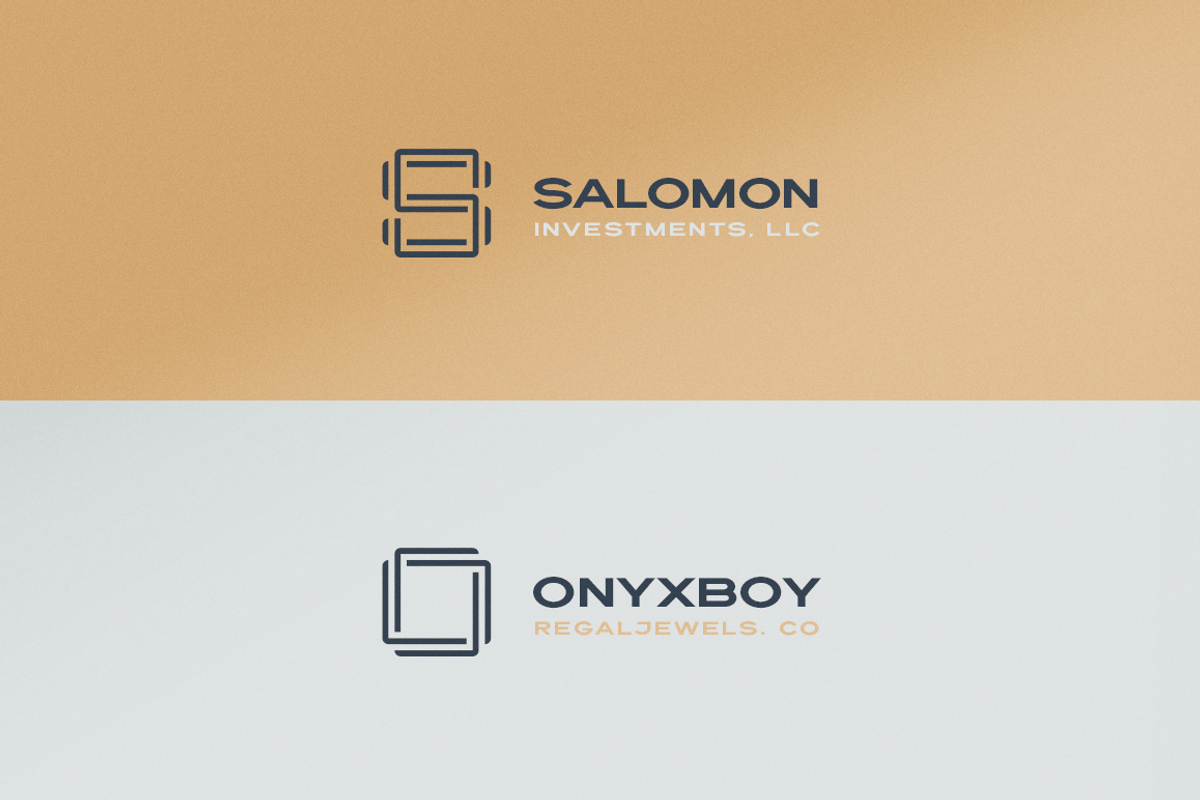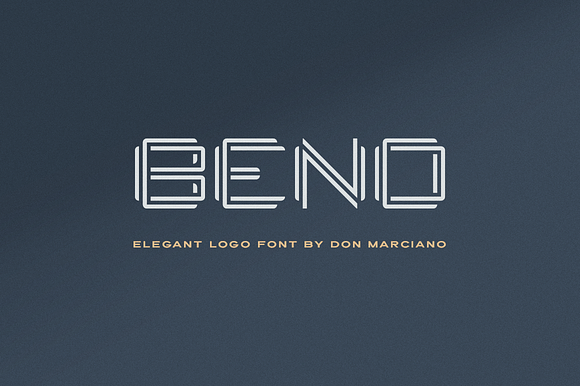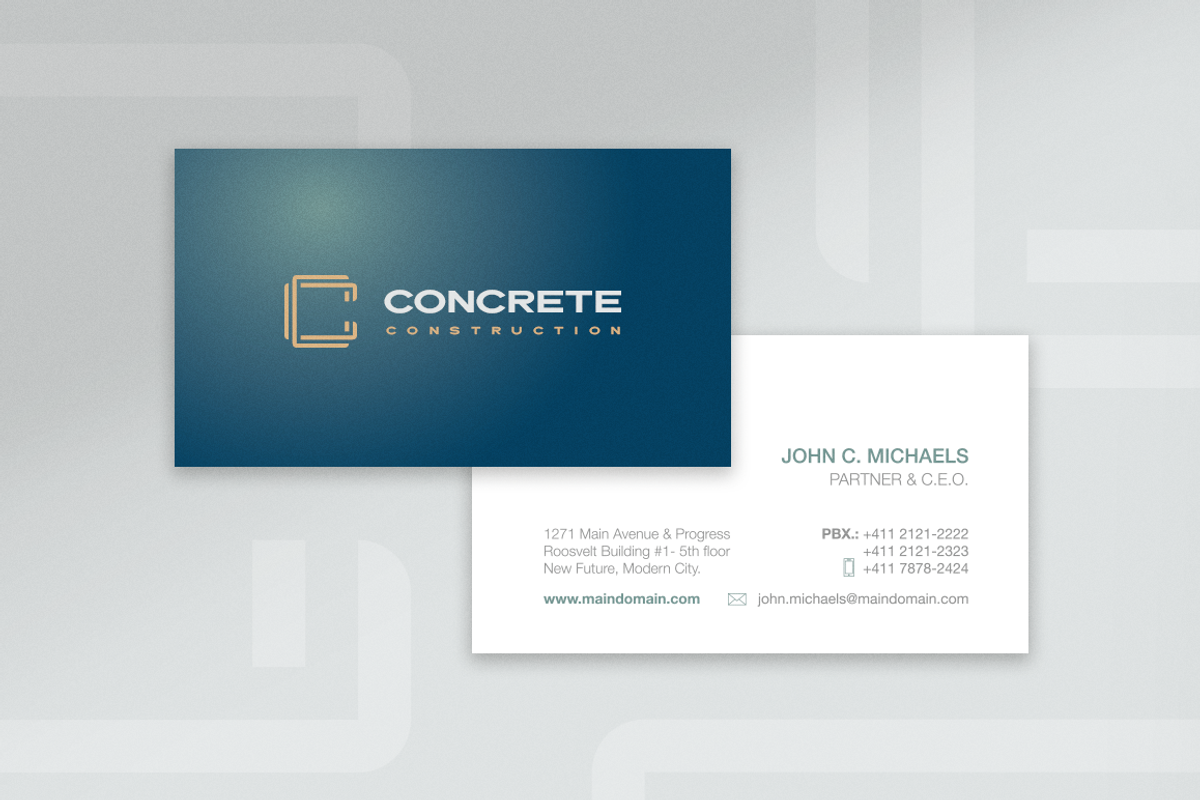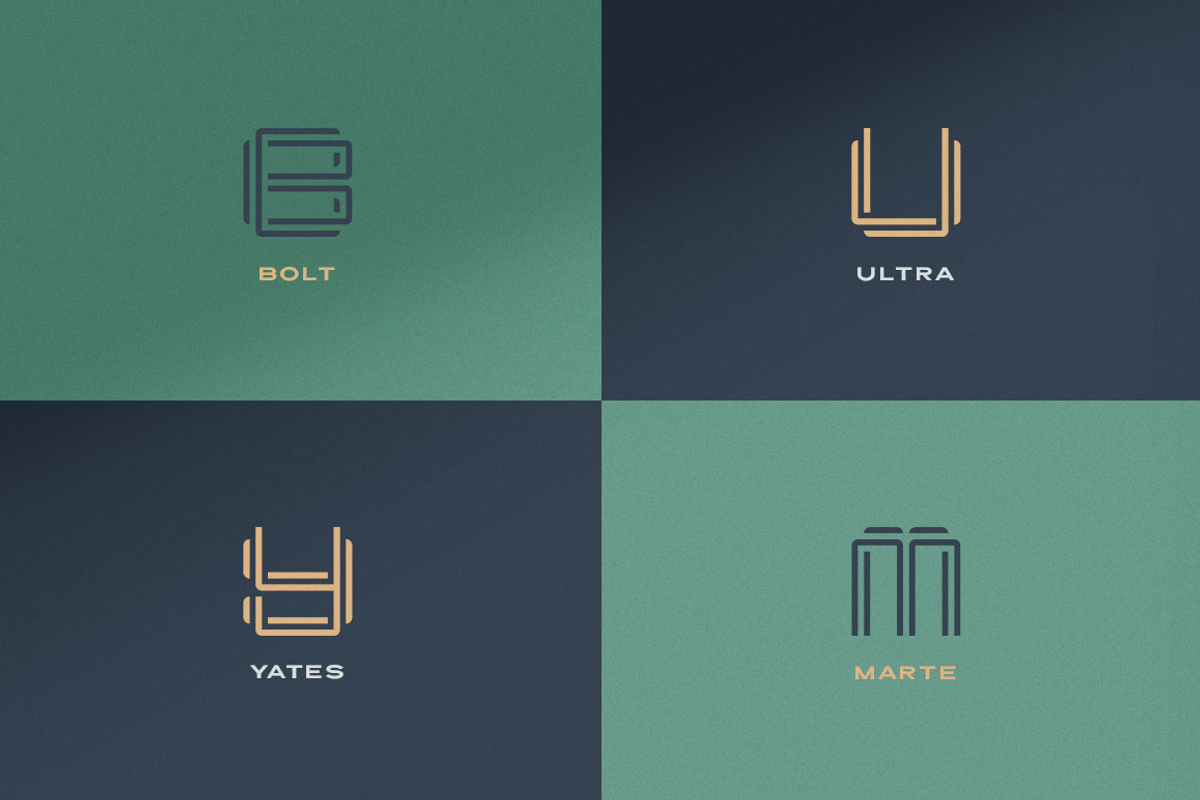
Bend Logo Font
Bend is a two-line only letters style font, design for an easy and fast way to create elegant and simple logo baseline for any kind of brand or product that is looking for that upscale look and feel, the font is especially good for one letter logos presentation; with straight lines and a combination of round and sharp corners Bend is here to help you get started on creating the logo your creative mind is aiming for.